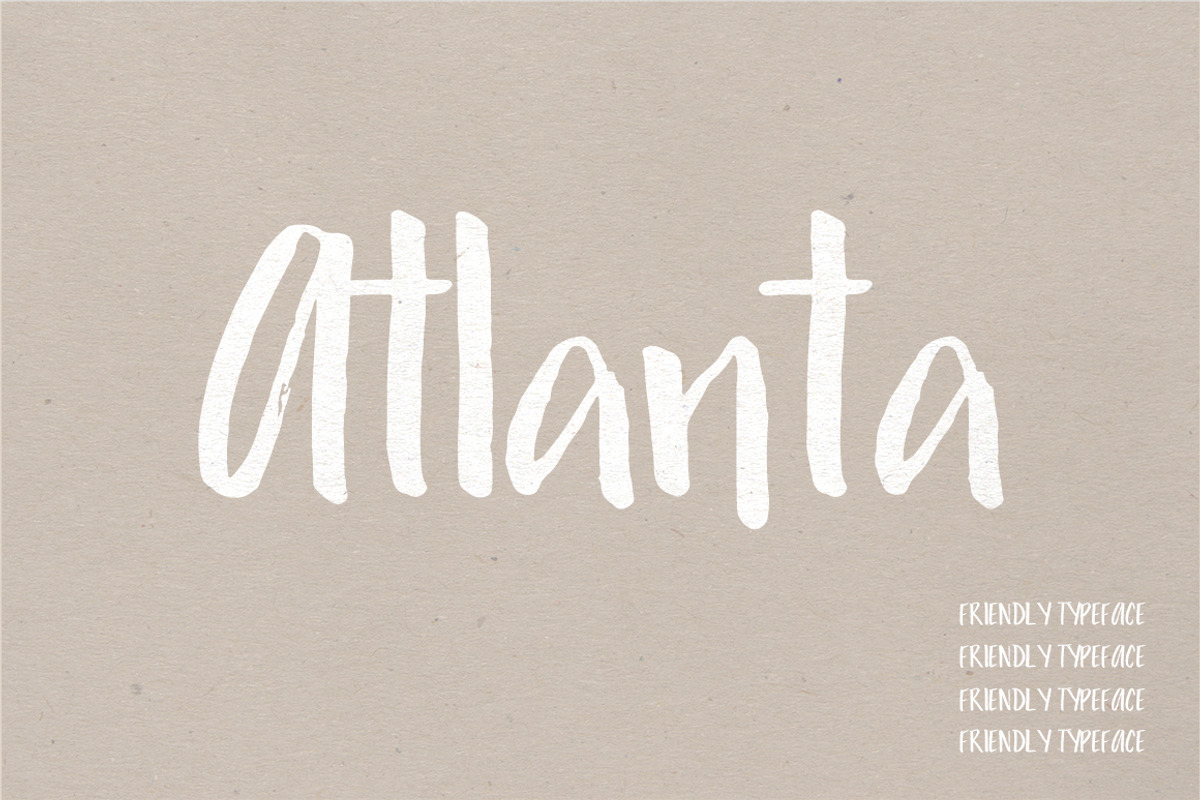
Atlanta | Friendly Typeface
Atlanta | Friendly Typeface by Jen Wagner Co is a font selected for branding, posters, packaging, typography.
- Created using a brush pen Includes uppercase & lowercase letters numbers & basic punctuation non-English characters Show More
Atlanta | Friendly Typeface by Jen Wagner Co fits naturally into Branding, posters, packaging, typography.